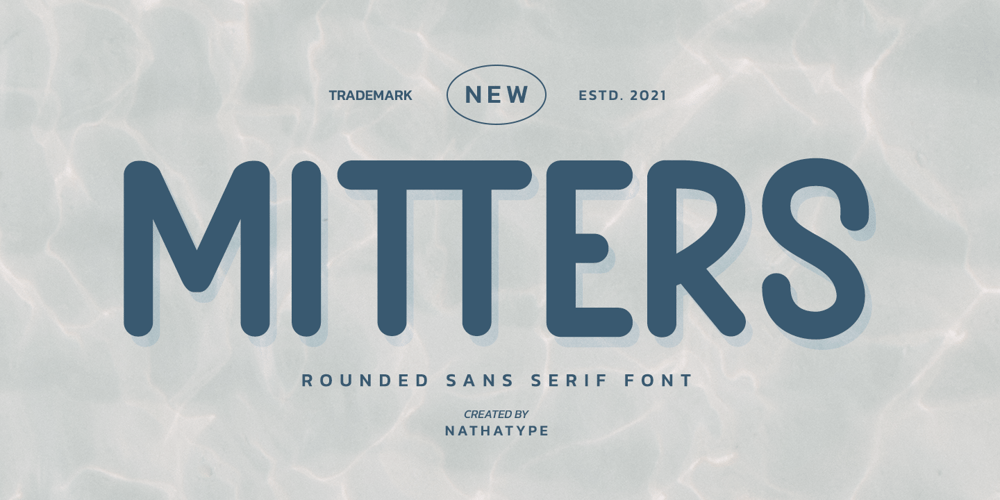
Mitters
Mitters font
Mitters Font Family was designed by Donis Miftahudin and published by Nathatype. Mitters contains 1 styles and family package options. Ready to make your branding spark? If you need to create a big, bold logo for your business, work on a poster for an event, or whatever your project may be-then this is the perfect font for you. Mitters-A Sans Serif FontMitters is a captive font designed with rounded outlines and fat strokes to bring your branding to life and add a touch of vintage, fun, but still stylish. This font features thick and angular letters that easy on the eyes and nice to look while it’s also easy to read. Perfect to create amazing headings, logos, menus, social media graphics, and many more. Our font always includes Multilingual Support to make your branding reach a global audience. Features: PUA Encoded Numerals and Punctuation Thank you for downloading premium fonts from Natha Studio